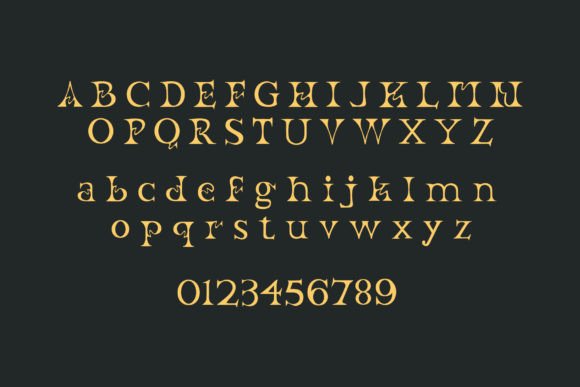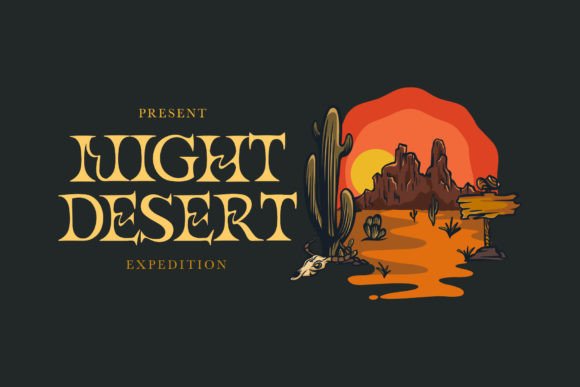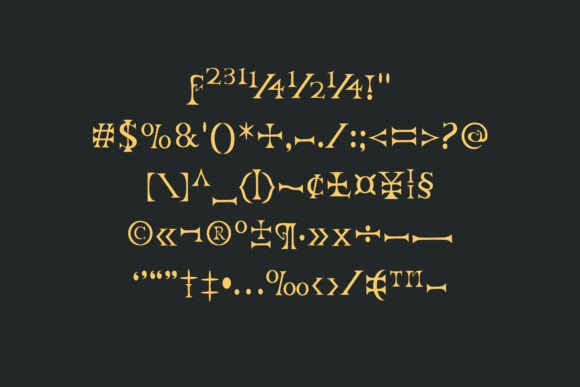
Introduction to Romanum Font
As a designer, have you ever found yourself staring at a blank canvas, struggling to find the perfect font to bring your creative project to life? You’ve poured your heart and soul into your design, but something’s missing – a touch of elegance, a dash of sophistication. That’s where the Romanum Font comes in, a stunning serif modern font that exudes refinement and intrigue.
With its classic proportions and delicate serifs, Romanum Font is the perfect design resource for any creative project. Whether you’re crafting a logo, designing a book cover, or creating a poster, this high-quality font will elevate your work to new heights. And the best part? It’s available for free download, complete with a transparent background, making it easy to integrate into your design.
Key Features of Romanum Font
- High-quality design resource ideal for creative projects, with a clean and elegant aesthetic.
- Features a transparent background, allowing for seamless integration into any design.
- Designed to be highly legible at various resolutions and sizes, making it perfect for both digital and print projects.
- Available in a range of font sizes, including 12pt, 14pt, 18pt, and 24pt, with a minimum recommended size of 10pt for optimal readability.
Honest Review: Romanum Font
I recently stumbled upon the Romanum Font, and I must say, it’s a great addition to any design resource. The moment I downloaded it, I knew I had to give it a try in my next creative project.
- ✨ High-quality typography: The Romanum Font has beautiful, intricate details that make it perfect for historical or classical-themed designs.
- ✨ Versatility: This font can be used in a variety of settings, from logos to posters, and even as a display font in digital design.
- ⚠️ Limited font styles: While the Romanum Font is a great addition to any design, it’s limited to a single style, which may not be ideal for designers who need more variety.
- ⚠️ Limited language support: The font seems to be limited to Latin-based languages, which may be a drawback for designers working with non-Latin languages.
Overall, the Romanum Font is a solid choice for designers looking for a high-quality, versatile font. While it has its limitations, it’s a great addition to any design resource, and the free download option makes it an excellent choice for designers on a budget.
Romanum Font
Romanum Font is a high-quality, free download design resource perfect for any creative project. With its elegant and sophisticated look, it’s ideal for designing logos, branding materials, and other visual elements that require a touch of classic style.
Tips for Getting the Most Out of Romanum Font
For the best results, use Romanum Font in conjunction with other design elements that complement its classic style. Experiment with different font sizes, colors, and arrangements to create a unique and eye-catching design.
Romanum Font is perfect for designing:
- Website headers and footers